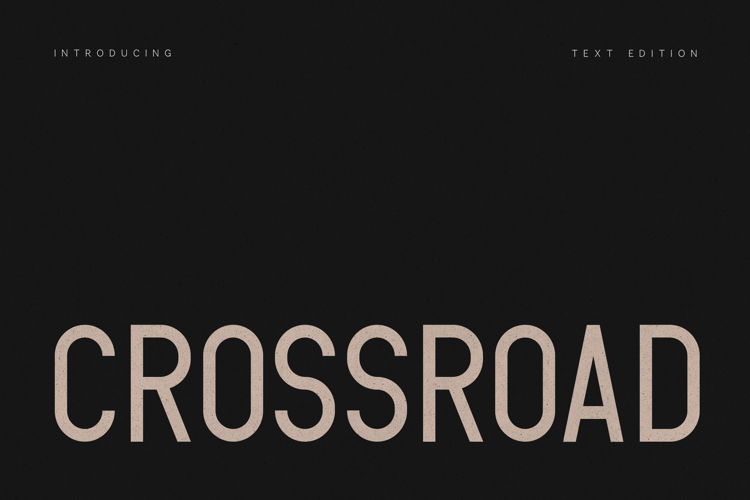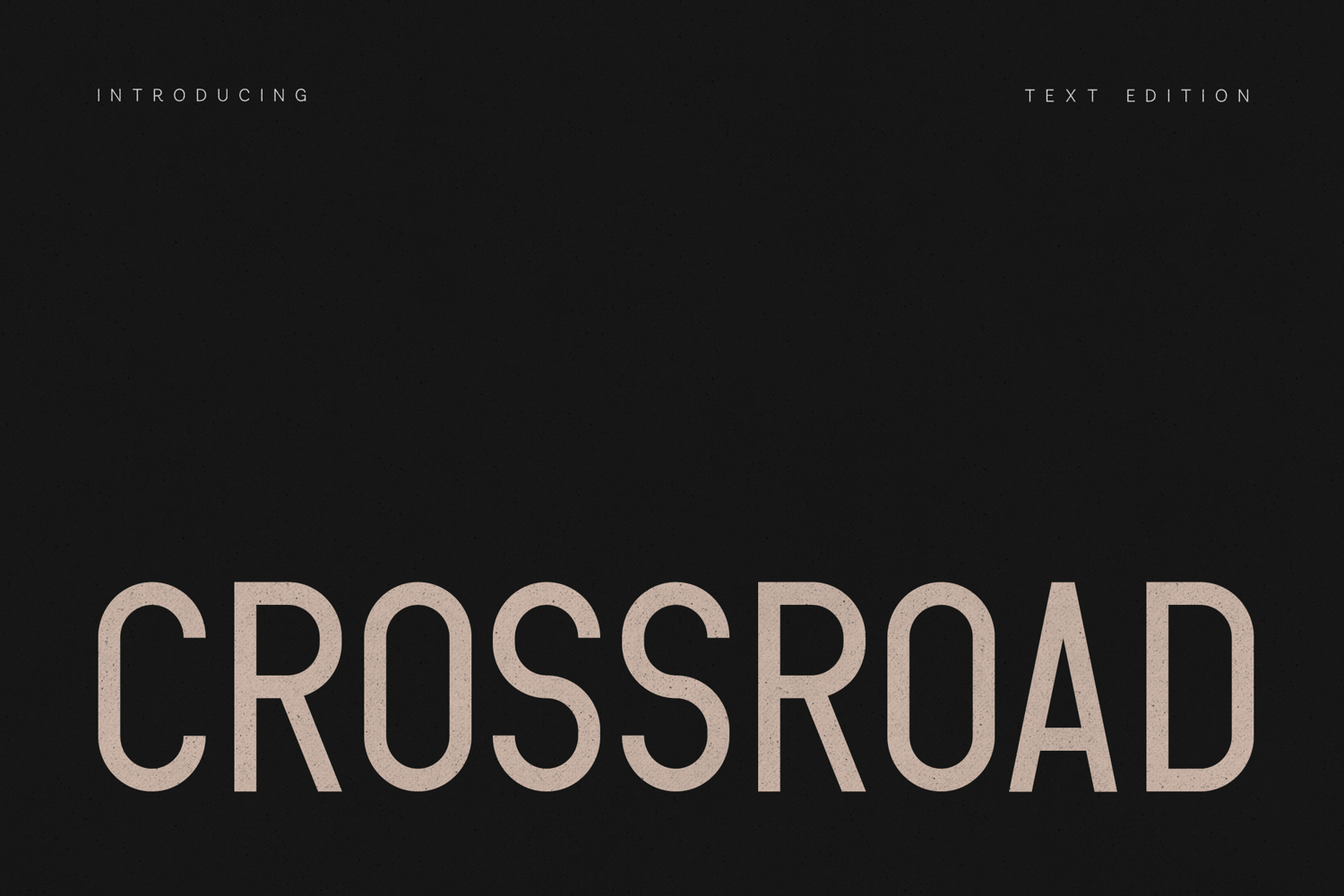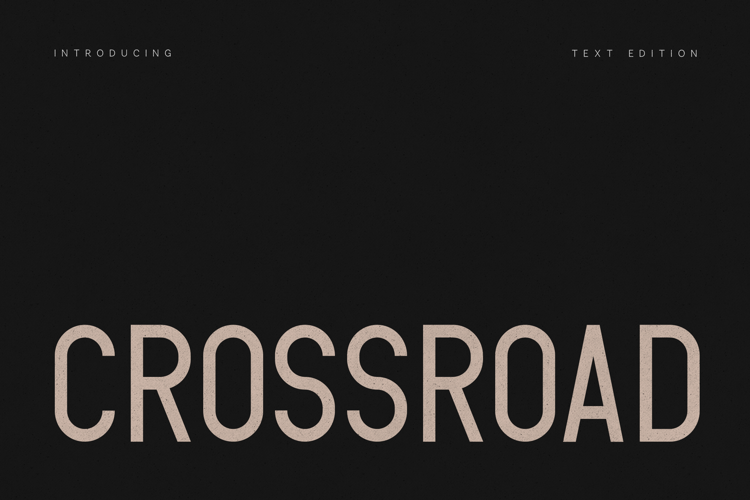
CrossRoad Condensed Sans Font
CrossRoad is a bold condensed sans serif built for impact, structure, and modern clarity.
With tall proportions and confident geometry, CrossRoad delivers strong visual rhythm while maintaining excellent readability. The condensed width makes it ideal for space-efficient headlines, posters, and branding systems that require presence without excess.
Its clean construction and neutral tone allow it to adapt across corporate, editorial, and contemporary creative projects.
• Posters & headlines
• Branding systems
• Logo design
• Editorial layouts
• Corporate identity
• Packaging
• Web typography
• Social media graphics
• Minimal design projects
• Uppercase & lowercase
• Numerals
• Punctuation
• Symbols
• Extended Latin support
• Multilingual characters
• Clean kerning & spacing
CrossRoad is designed for designers who want strong typography, condensed elegance, and modern versatility.